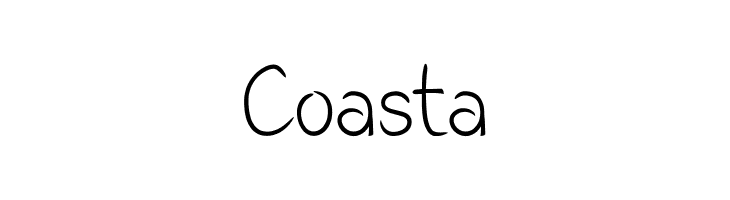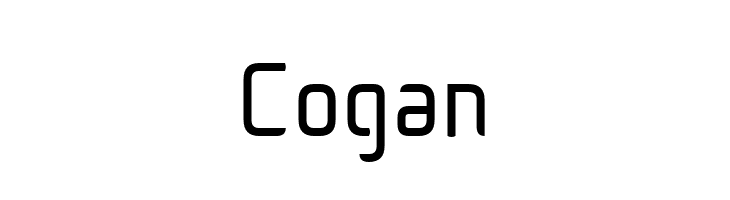
A bold, jagged font with a raw, energetic style, perfect for dramatic themes.
A modern, elegant script font with flowing curves and decorative swashes.
A bold, brush-style font with dynamic, hand-painted strokes.
A playful, handwritten font with a casual and friendly style.
A lively, cursive font with elegant curves and a hand-drawn appearance.
A futuristic, geometric font with bold outlines and sharp angles.
A bold, cursive script font with elegant, flowing letterforms.
A pixelated, grid-based font with a modern digital aesthetic.
A bold, distressed font with an eroded, vintage texture.
Bold, graffiti-inspired font with dynamic and expressive characters.
An abstract, graffiti-inspired decorative font with bold, swirling forms.
A bold, graffiti-inspired font with sharp angles and sweeping lines.
A sleek, ultra-thin font with a modern and elegant design.
A dynamic, expressive handwritten font with fluid, cursive strokes.
A sleek, modern font with elongated, narrow characters and sharp edges.
A modern, narrow font with a slashed, futuristic design.
A playful handwritten font with irregular strokes and a whimsical style.
A dynamic and fluid script font with elegant, flowing letterforms.
An elegant and flowing script font with ornate uppercase and readable lowercase letters.
A modern, geometric font with a smooth, consistent stroke width.
A modern, geometric font with thin, consistent strokes and unique character designs.
A cursive, handwritten font with elegant, flowing strokes.
A graceful, flowing script font with elegant, connected characters.
A bold, geometric monogram font with sharp angles and industrial flair.
A bold, graffiti-inspired font with sharp, angular lines and dynamic flow.
A bold, flowing script font with a lively, handwritten style.
A playful, handwritten script font with bold strokes and smooth curves.
A playful, handwritten font with a casual and authentic feel.
A playful, rounded font with smooth curves and a friendly appearance.
A modern serif font with playful curves and consistent stroke width.
A lively, cursive script font with fluid strokes and a personal touch.
A playful, bold handwritten font with rounded, informal letterforms.
A playful, whimsical font with flowing, curvy lines and unique letterforms.